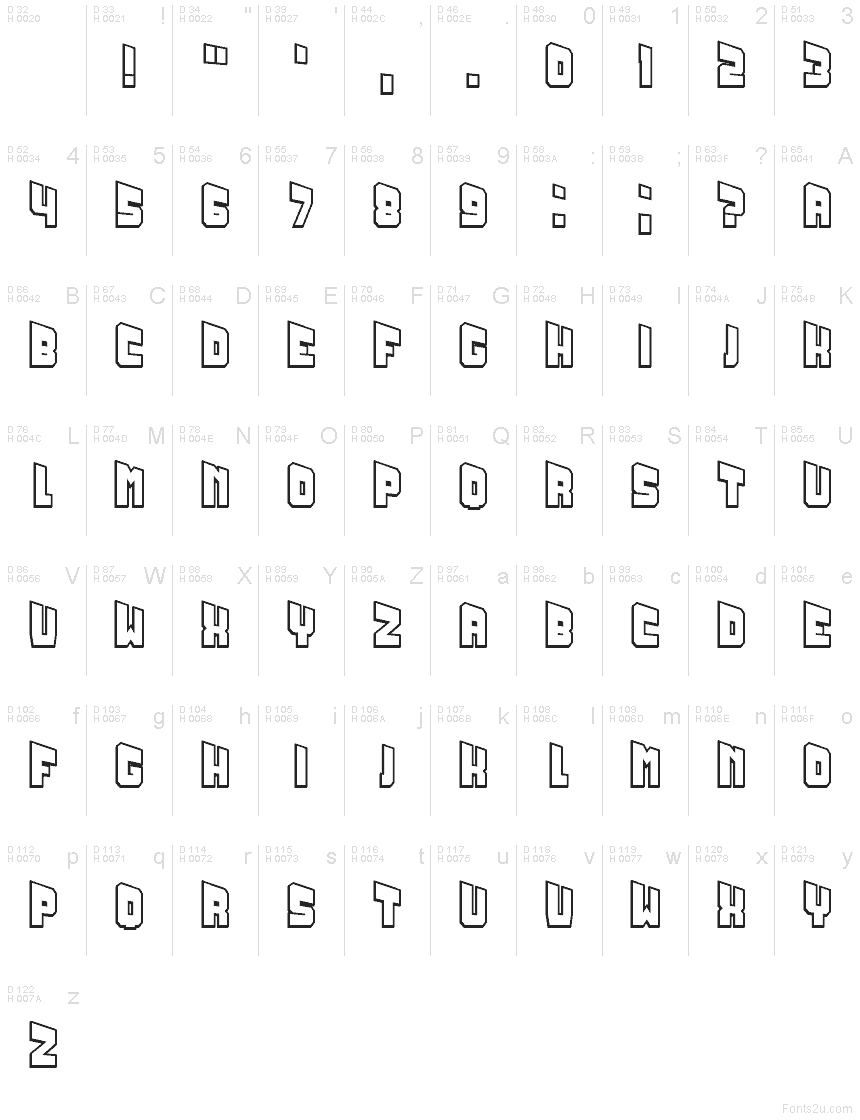
Big Deal Regular
Big Deal font by Vladimir Nikolic is a free 3D display typeface that hits like a bold headline sticker slapped onto a wall. Blocky, chunky letters with crisp inner counters and a hard-edged shadow give it an instant sense of depth, like folded cardboard or stacked foam letters. The tight shapes and clean outlines keep it readable while still feeling loud, playful, and a little bit in-your-face.
Using Big Deal, you can punch up event posters, sale banners, YouTube thumbnails, game titles, logo experiments, and bold social graphics that need to shout from the screen. This free font shines at large sizes where its dimensional effect really pops; pair it with a simple, neutral sans serif for body copy to keep the focus on those big, sculpted forms.